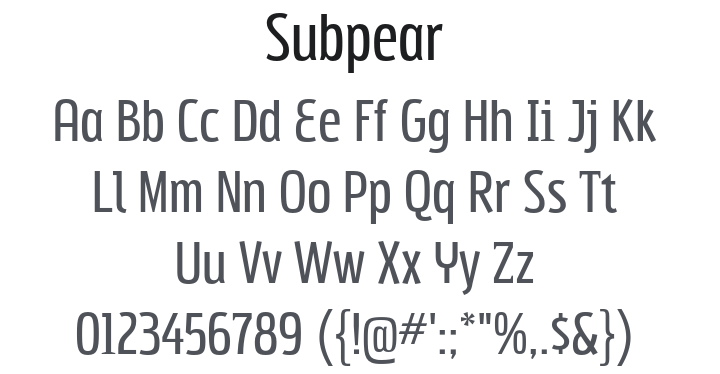
Subpear Font
About Subpear
Subpear is a squelched, friendly technical sans-serif typeface — a deliberate mash-up of 1990s typographic tropes condensed into a hushed, approachable package. Its slightly compressed, clean letterforms carry that unmistakable late-Y2K design sensibility with genuine warmth. Created as a heartfelt farewell to the Y2K design era. Perfect for retro-90s themed designs, tech editorial, interface mockups, indie game UI, and any project channeling nostalgic early-internet personality.